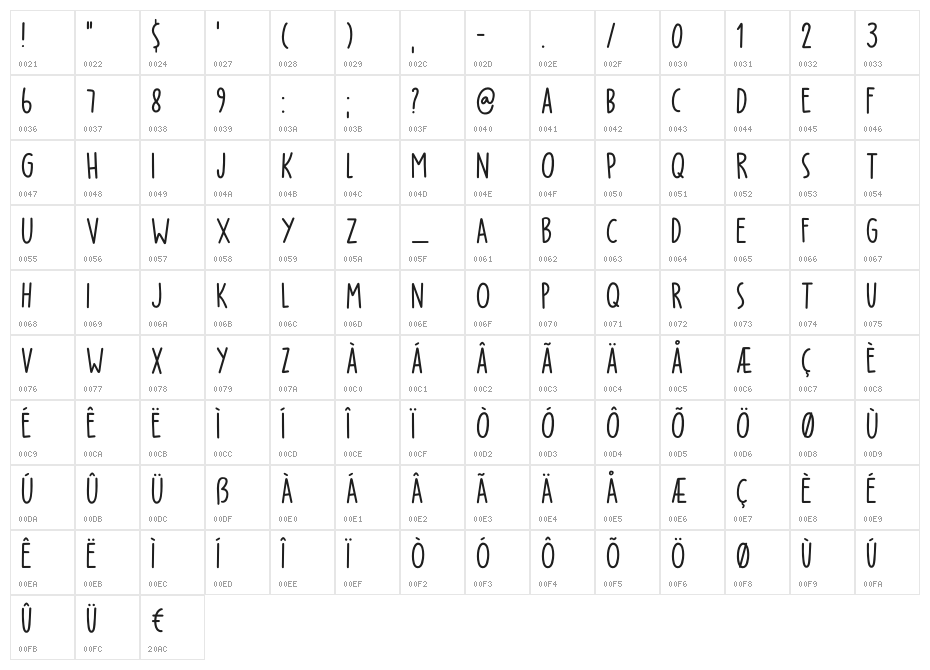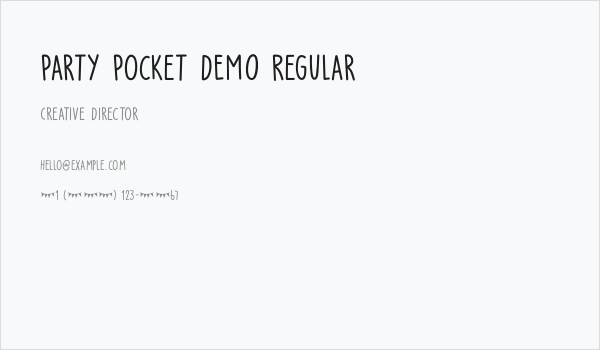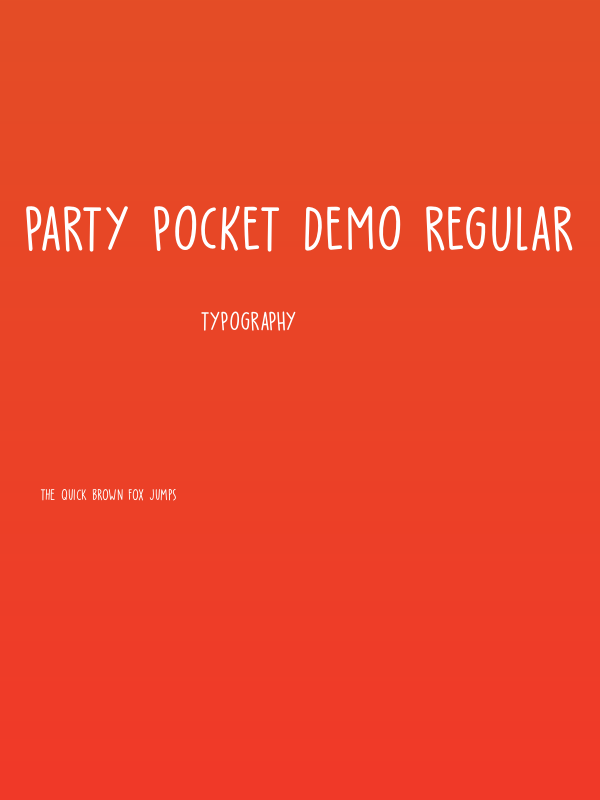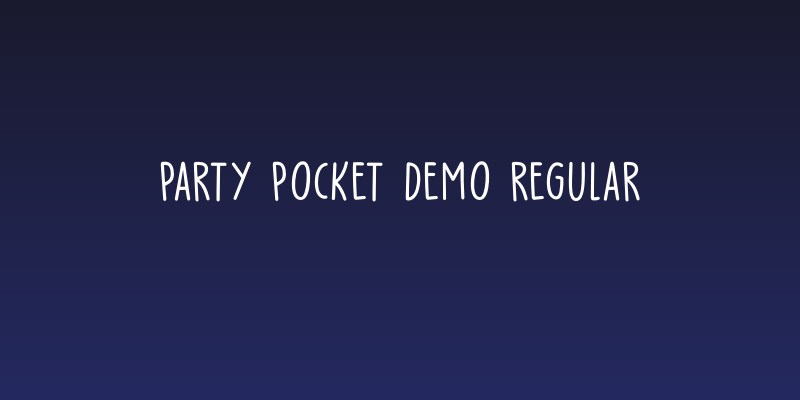
Party Pocket DEMO Regular Font
Party Pocket DEMO Regular Description
This playful and whimsical font features tall, narrow letters with a hand-drawn aesthetic. The characters are slightly irregular, adding a casual and friendly feel. The uppercase and lowercase letters maintain a consistent style, with smooth curves and rounded edges. The numbers are similarly styled, ensuring uniformity across the font. Special characters include decorative elements like banners, enhancing the font's festive and celebratory vibe. This font is ideal for projects that require a fun and informal touch, such as party invitations, greeting cards, or children's book covers.
| Proposed Projects | Ideal for party invitations, greeting cards, children's book covers, and playful branding. |